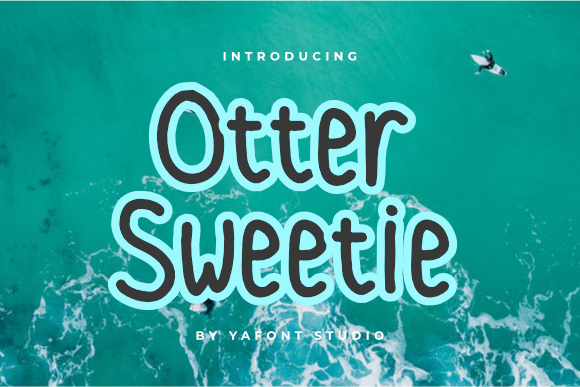
Introduction to Otter Sweetie Font
Otter Sweetie is a cute and warm handwritten font.
Cute and a bit quirky, this font will look lovely on a variety of designs Add it confidently to your projects, and you wonโ€™t be disappointed.
Key Features of Otter Sweetie Font
Why Choose Otter Sweetie Font?
Otter Sweetie Font offers exceptional quality and versatility, making it a valuable addition to your design toolkit. Whether you’re creating for personal projects or commercial use, Otter Sweetie Font delivers professional results.